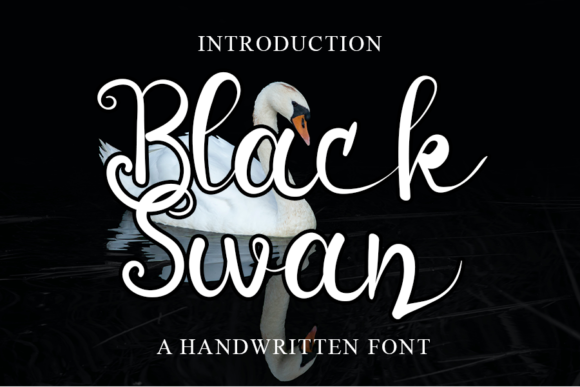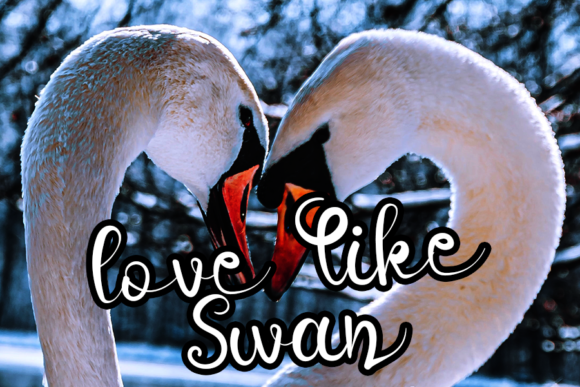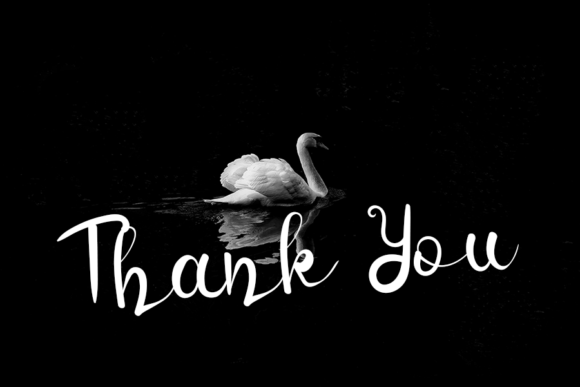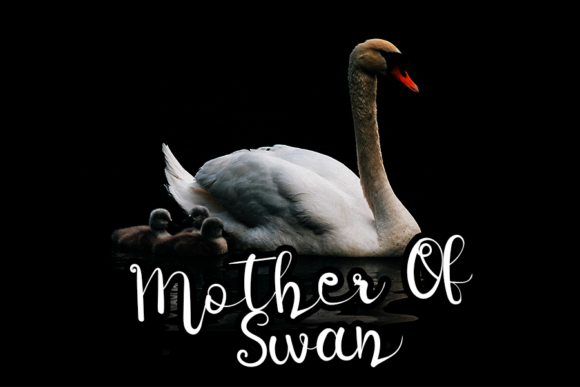
About Black Swan Font
BlackSwan is a charming handwritten font with an elegant and playful style. Add it to your most creative ideas, and notice how it makes them come alive!